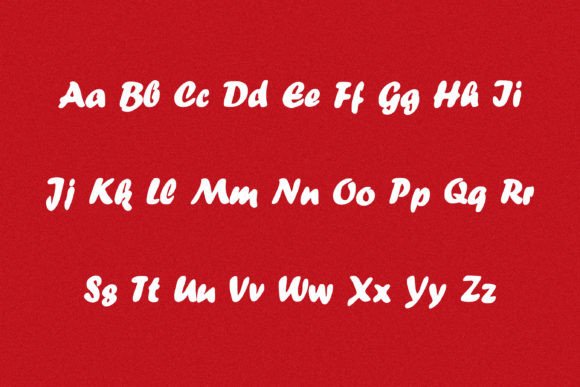
Introduction to Mexico City Font Font
Fonts play a crucial role in design, and the Mexico City Font font is a typeface that brings both character and versatility to any project. Whether you’re working on a branding project, a website, or a print design, the Mexico City Font font offers a unique style that can elevate your work.
Mexico City is a handwritten bold brush script font.
It is perfect for products that need to stand out but still look elegant and handmade .
Key Features of Mexico City Font Font
Why Choose Mexico City Font Font?
The Mexico City Font font is more than just a typeface – it’s a design tool that helps you communicate your message with style and clarity. Its unique character set and versatile design make it suitable for a wide range of applications, from elegant invitations to bold headlines.
With its carefully crafted letterforms and balanced proportions, the Mexico City Font font ensures readability and visual appeal across all mediums.
What makes Mexico City Font font special?
The Mexico City Font font stands out with its unique design, exceptional readability, and versatility across various design applications.